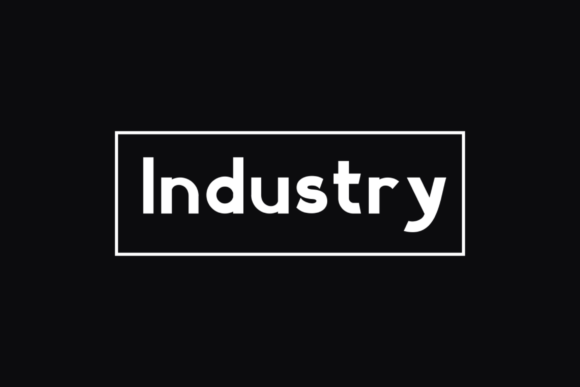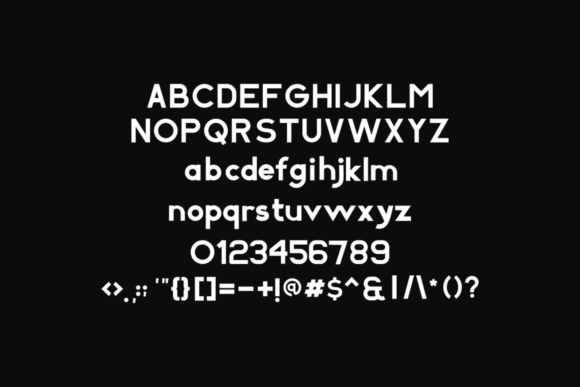
Introduction to Galezy Font
Galezy is an elegant and modern sans serif font.
This minimalist and clean vibe can easily apply to your favorite designs such as book covers, magazines, social media posts, invitations, and so much more .
Why Choose Galezy Font?